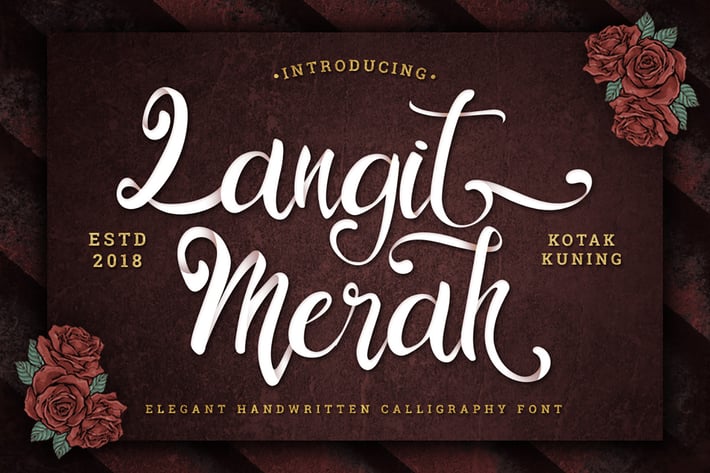
Langit Merah - Handwritten Calligraphy Font
Introducing Langit Merah Font! An elegant handwritten calligraphy font with Hand Lettering style which gives more personal touch and makes the font looks being customized.
This font is suitable to use as a logotype, product designs, label, watermark, social media posts, apparel, invitation, signboard, sports club, motor/car community, special events, or anything that needs handwriting taste.